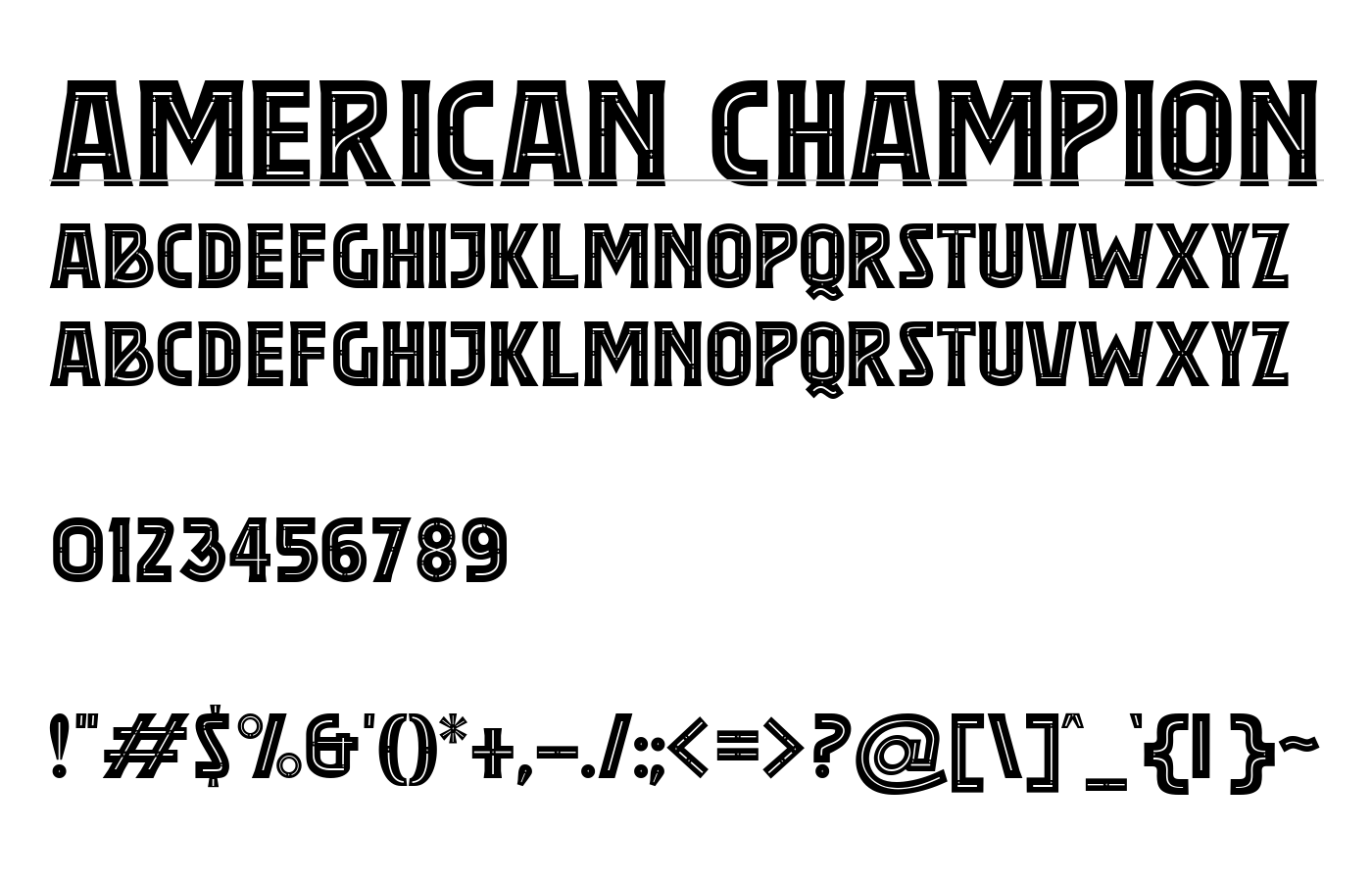
American Champion is a bold, condensed sans serif font with a striking, vintage athletic feel. Its layered, outlined style and geometric letterforms give it strong presence and energy, making it perfect for sports branding, posters, and headlines that need a powerful, retro-inspired look. This font captures a sense of competition and American heritage, ideal for designs that want to stand out with confidence and character.
American Champion Font
About American Champion Font